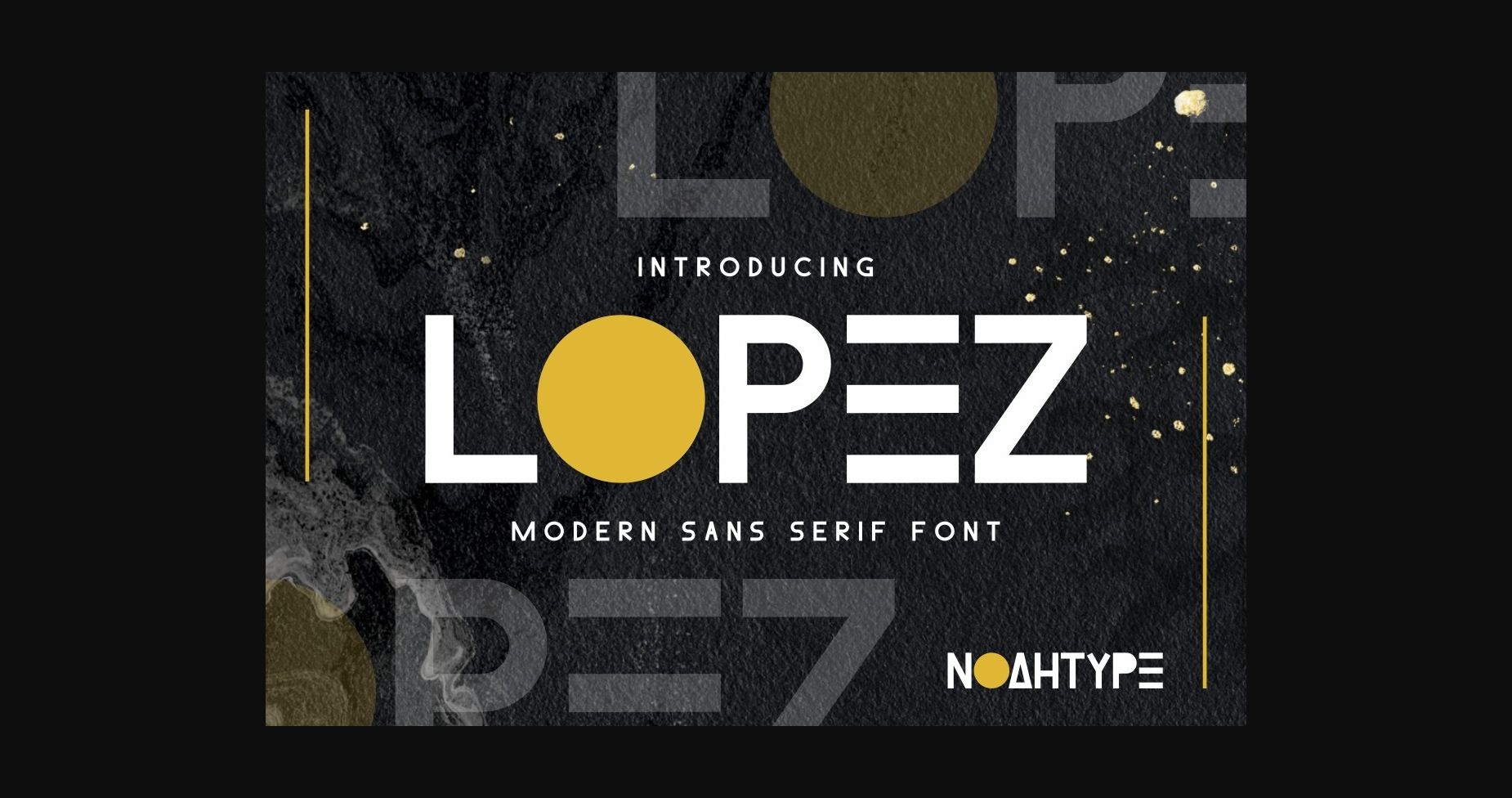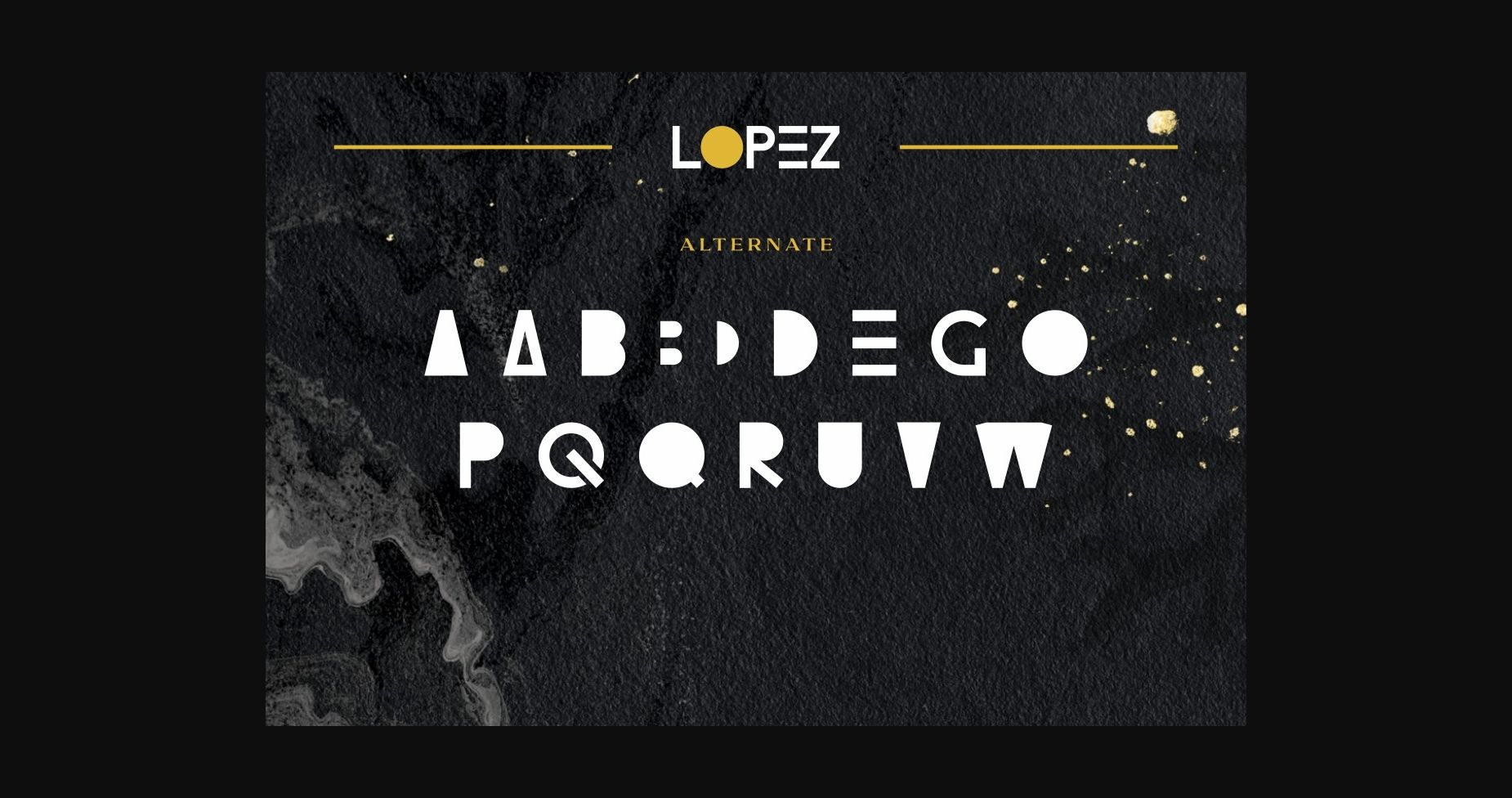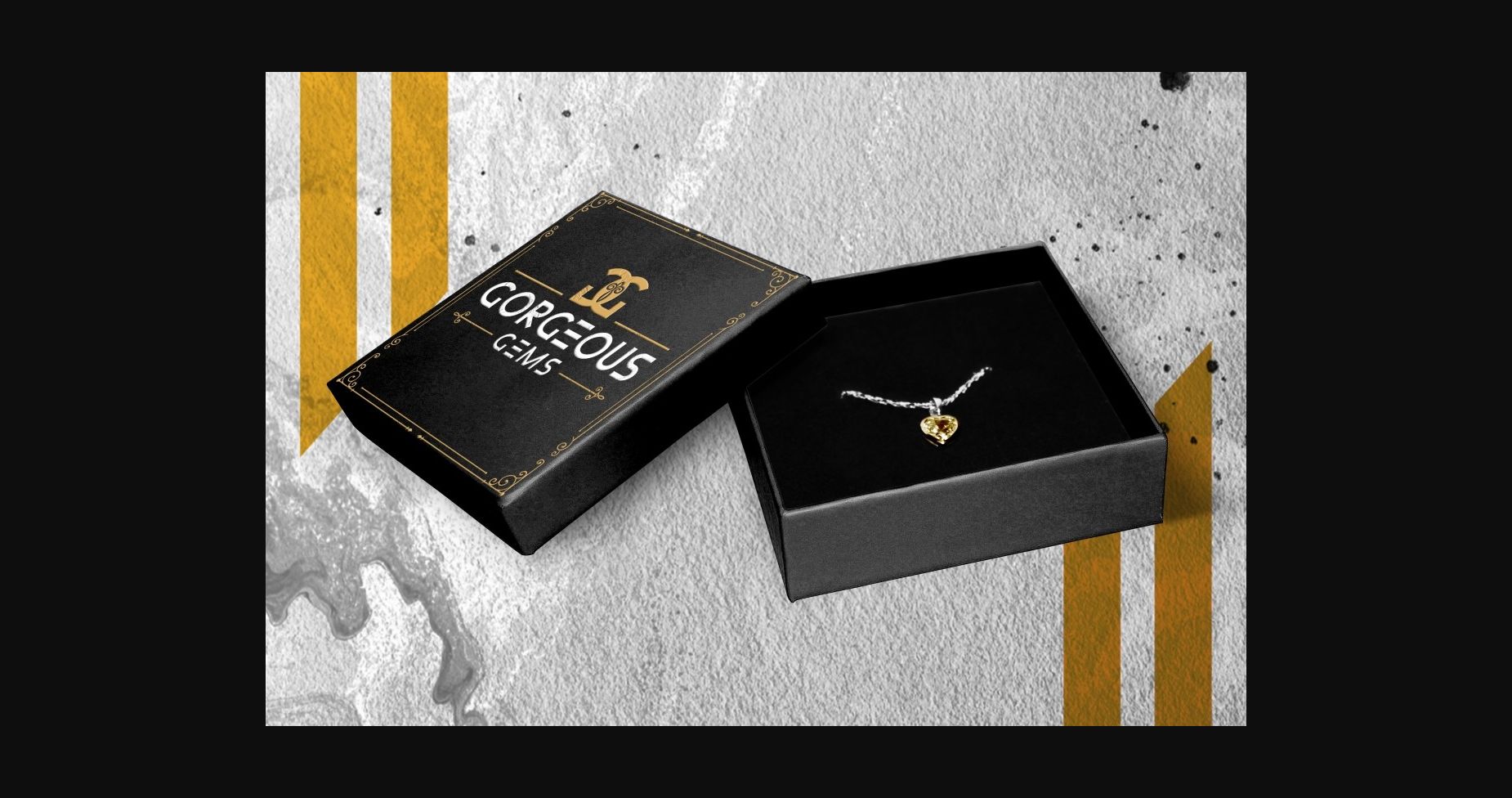
About Lopez Font
Lopez is a modern sans serif font. It is PUA encoded which means you can access all of the glyphs and swashes with ease! It has a clean and smooth vibe and it will be a hit for any design that you want to add it to.